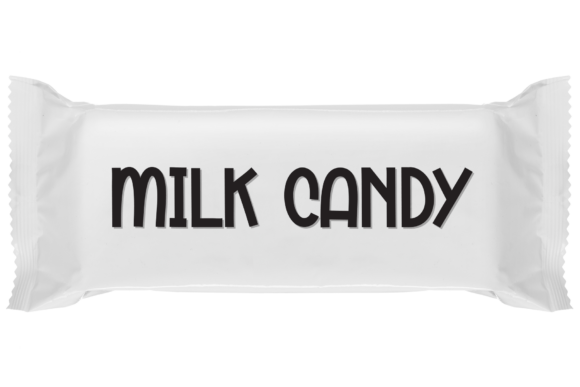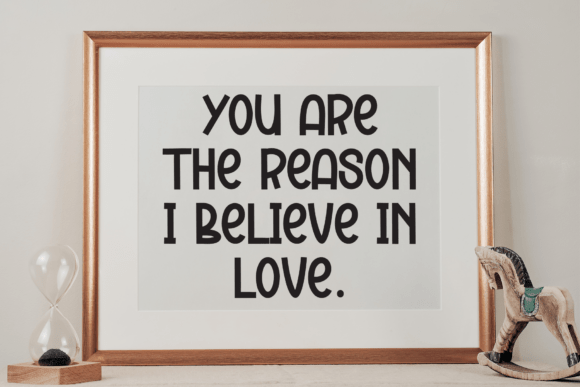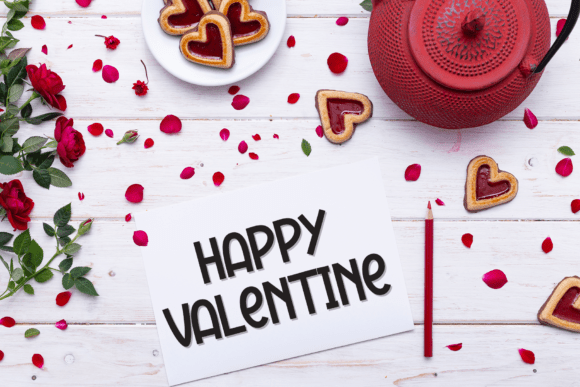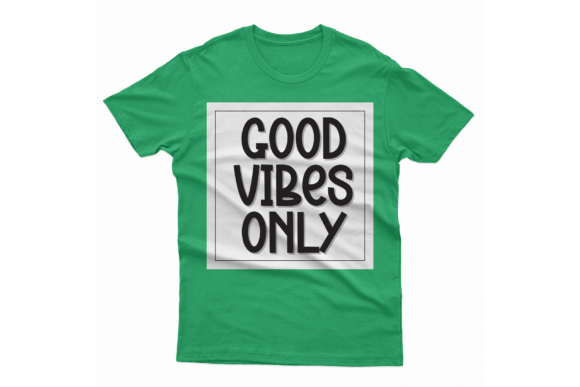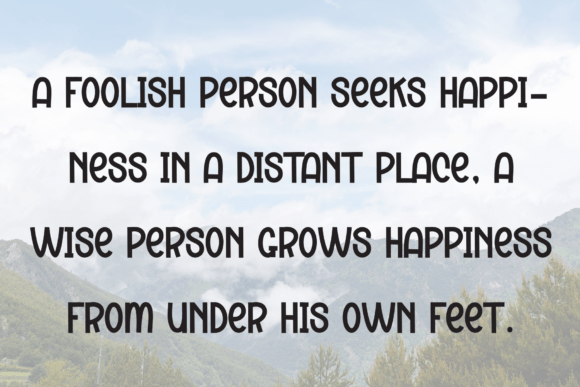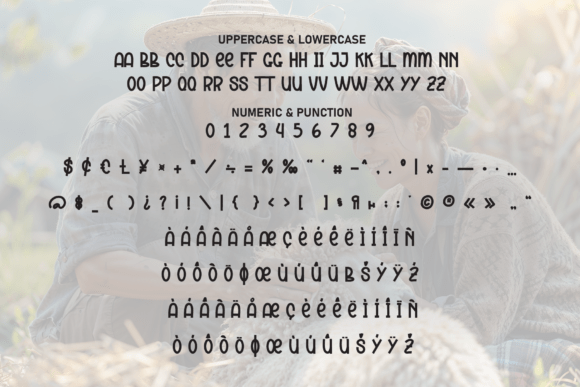
Introduction to Farmer Font
As designers, we’ve all been there – staring at a blank page, trying to come up with the perfect font to bring our creative project to life. It’s a moment of pure serendipity when we stumble upon the perfect match, and that’s exactly what happened when I discovered Farmer Font, also known as Sweet Scribbles. This delightful display font is an absolute gem, with its custom hand-lettering style and endearing whimsy that’s sure to capture the hearts of anyone who lays eyes on it.
Farmer Font is more than just a pretty face, however – it’s a valuable resource for designers looking to add a touch of personality to their work. With its high-quality design and transparent background, it’s the perfect addition to any project where a sprinkle of joy is called for.
Key Features of Farmer Font
- High-quality design resource: Farmer Font is a premium font designed to elevate your creative project with its unique style and sophistication.
- Unique characteristics: This font features a distinctive, hand-drawn style with subtle imperfections, adding a touch of personality to your design.
Honest Review: Farmer Font
I recently had the chance to experiment with the Farmer Font, and I must say it’s been a delightful addition to my design resource collection. This free download has been making waves in the design community, and for good reason.
- ✨ High-quality design: Farmer Font boasts a clean, rustic aesthetic that’s perfect for creative projects.
- ✨ Versatile: This font is suitable for a wide range of applications, from branding to editorial content.
- ⚠️ Limited character set: While the font includes a decent number of characters, it’s not extensive enough to cover all possible design scenarios.
- ⚠️ Not suitable for small text: Due to its rustic design, Farmer Font can become difficult to read when used for small text sizes.
Overall, I’m impressed with Farmer Font. It’s a solid addition to any designer’s toolkit, and its free download status makes it an even more attractive option. Just be mindful of its limitations and use it accordingly.